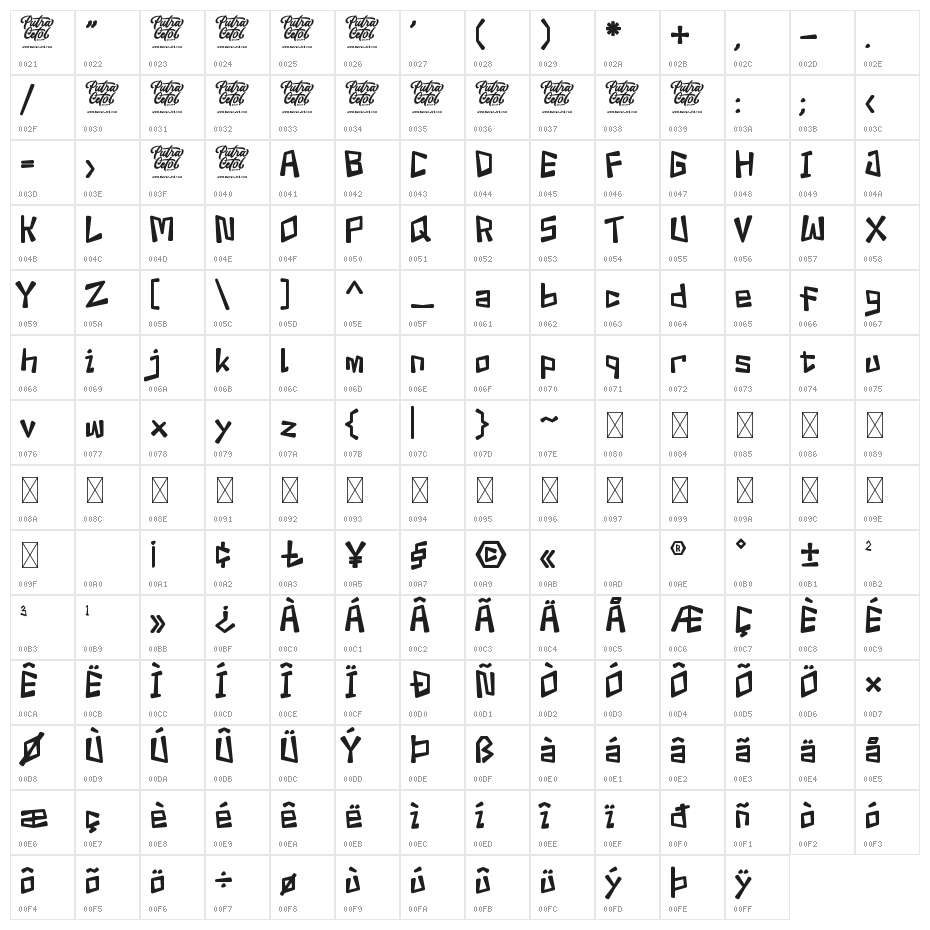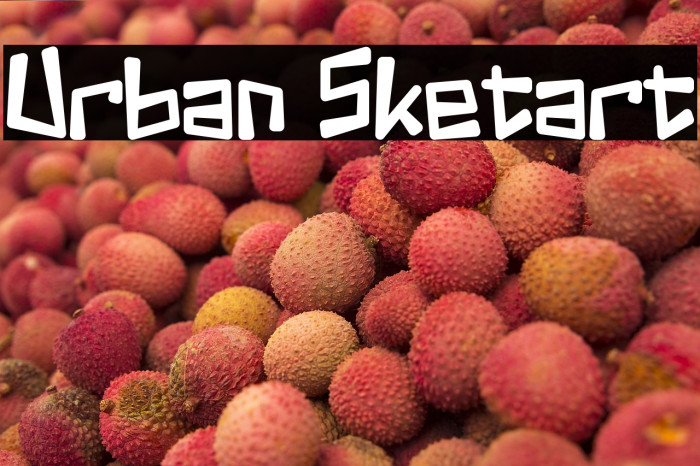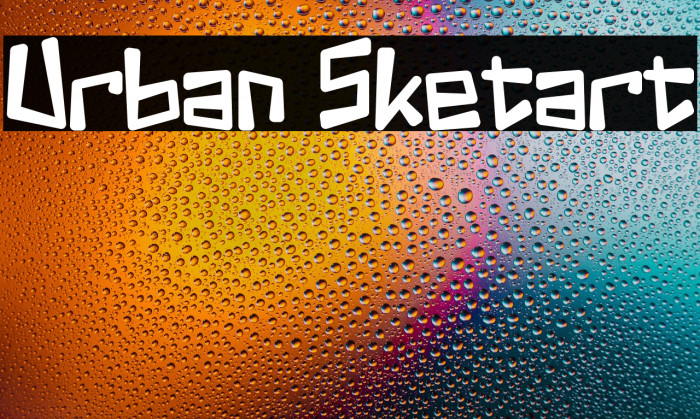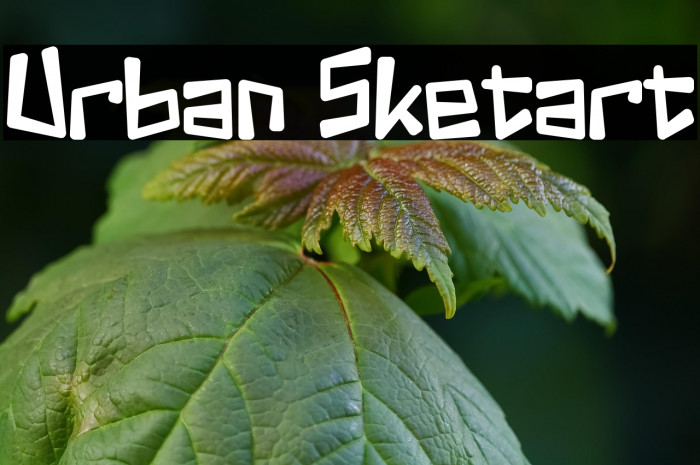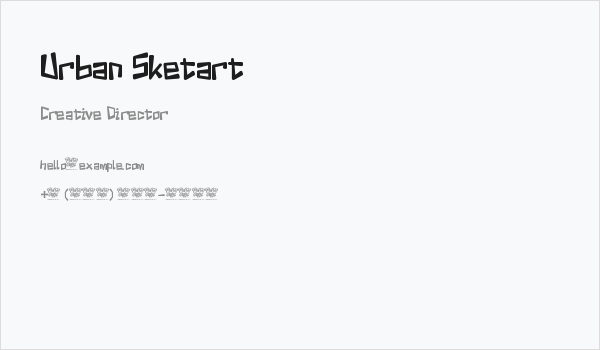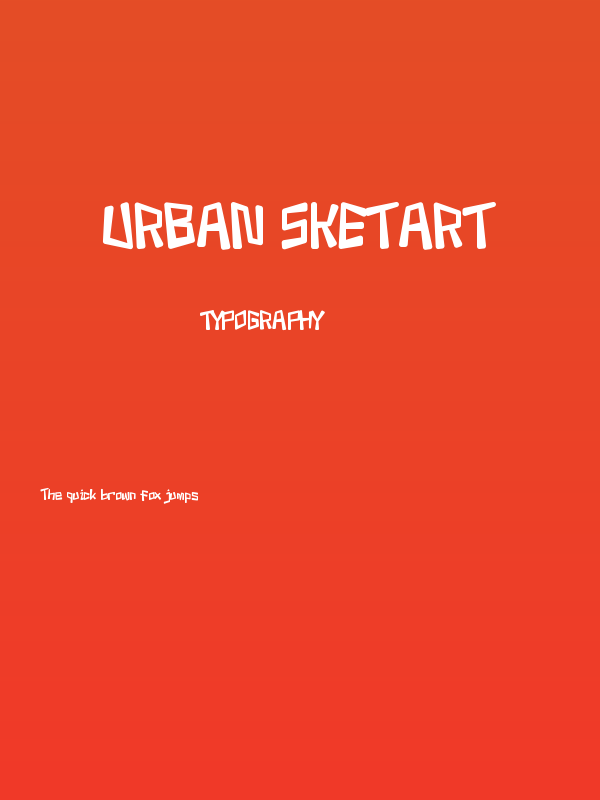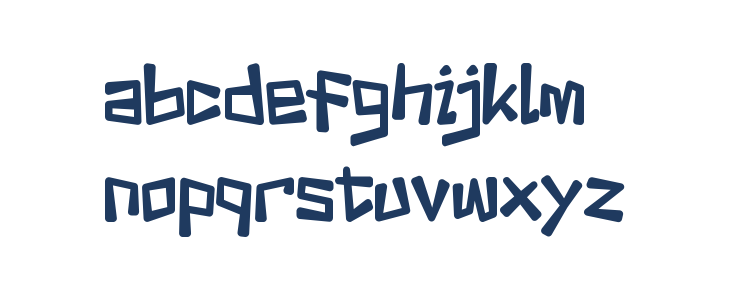
Urban Sketart Font
Urban Sketart Description
This font exudes a bold, urban vibe with its thick, angular strokes and slightly irregular shapes, giving it a hand-drawn, graffiti-like appearance. The uppercase letters are particularly striking, with a strong presence and a playful twist in their form. The lowercase letters maintain this dynamic style, offering a cohesive look across the alphabet. The numerals and special characters follow suit, ensuring consistency throughout. This font's unique style makes it stand out, perfect for projects that require a touch of creativity and edge.
| Overall Style | Urban, Creative, Edgy |
| Use Case | Logos, Posters, Headlines |
| Proposed Projects | Ideal for street art designs, urban-themed posters, edgy branding, and creative social media graphics. |